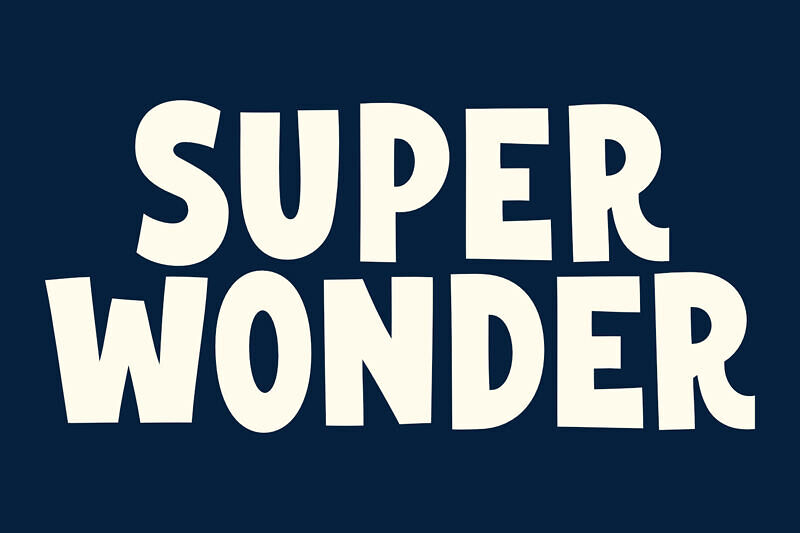
Super Wonder Font is a playful, free cartoon-style typeface with bold, whimsical letterforms designed to add fun personality to your text.
This fancy font features rounded, expressive characters perfect for comics, kids’ graphics, posters, logos, titles, and creative designs that demand eye-catching style. Easy to use and free for personal & commercial use, Super Wonder brings a lively, energetic feel to any project with its friendly, dynamic look.